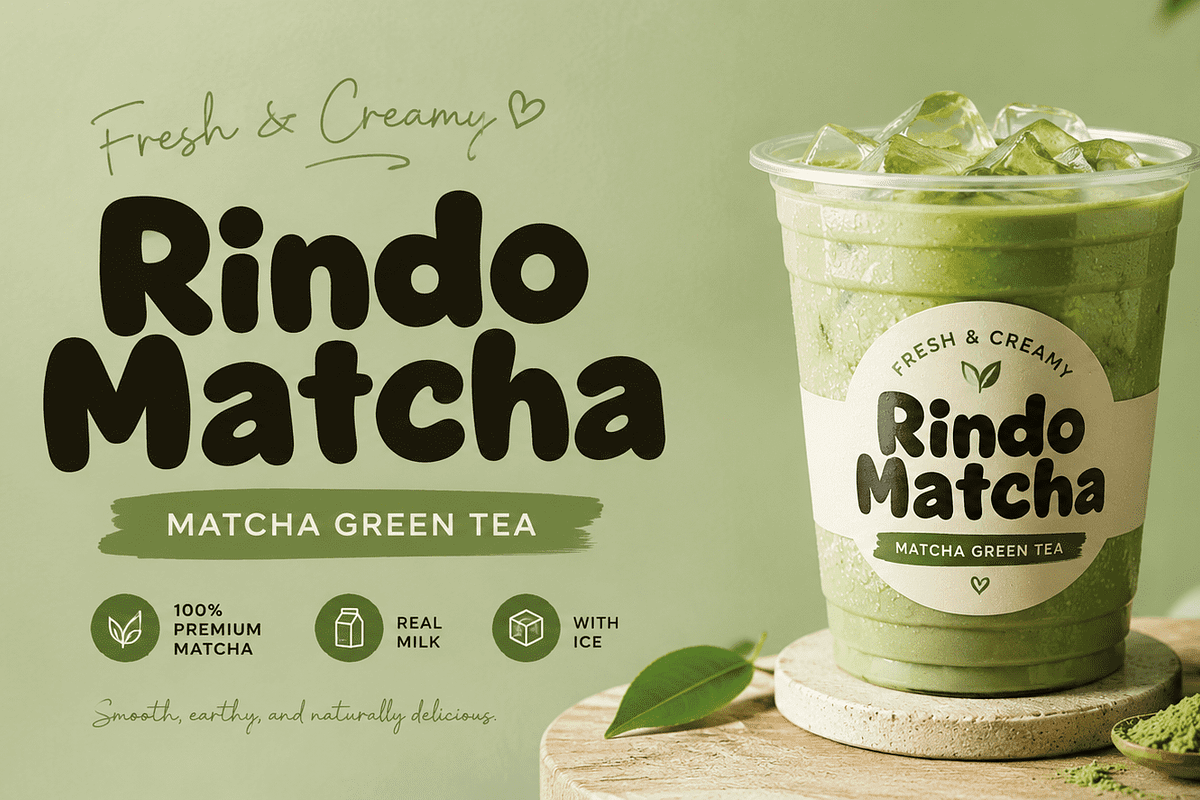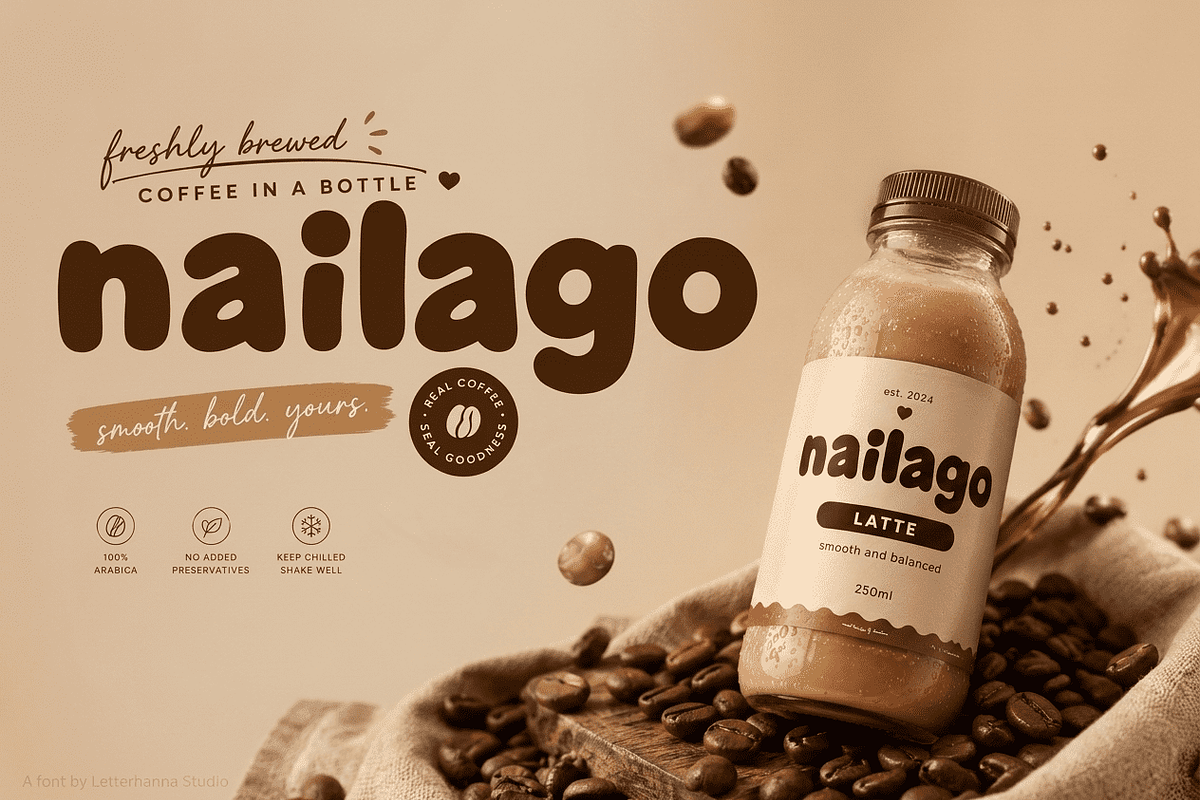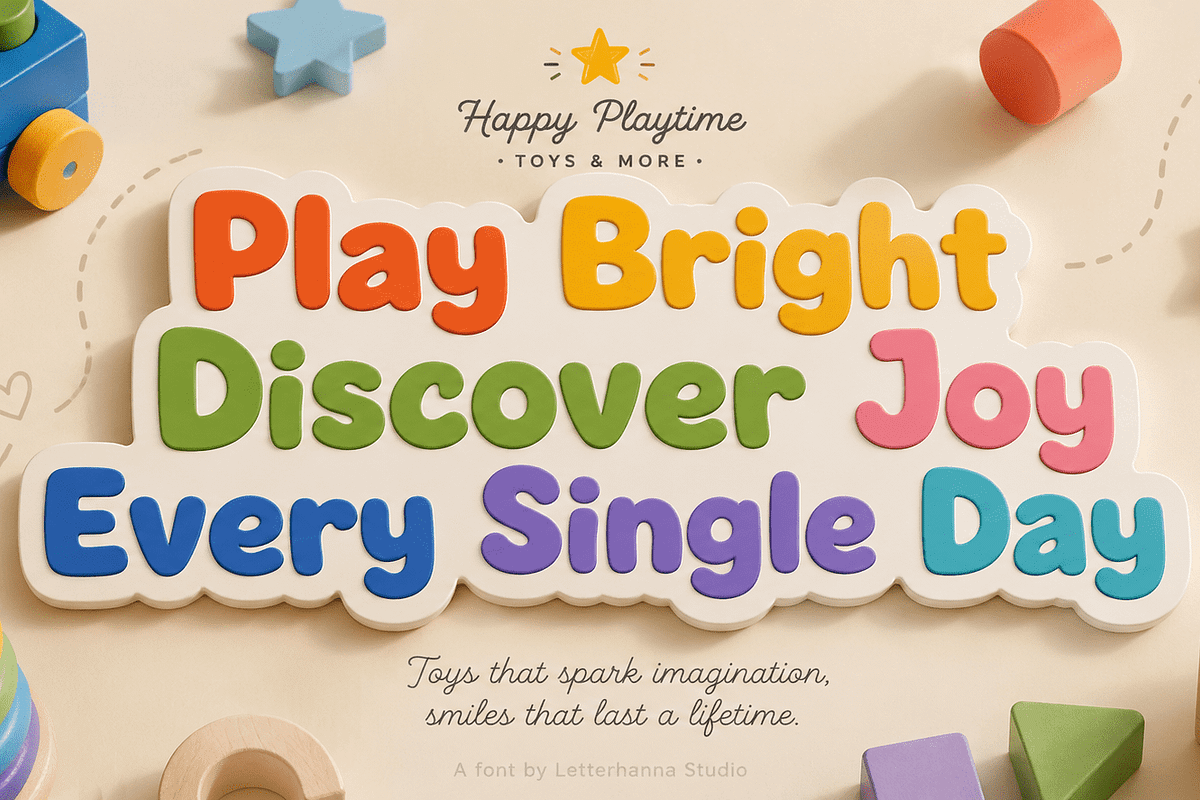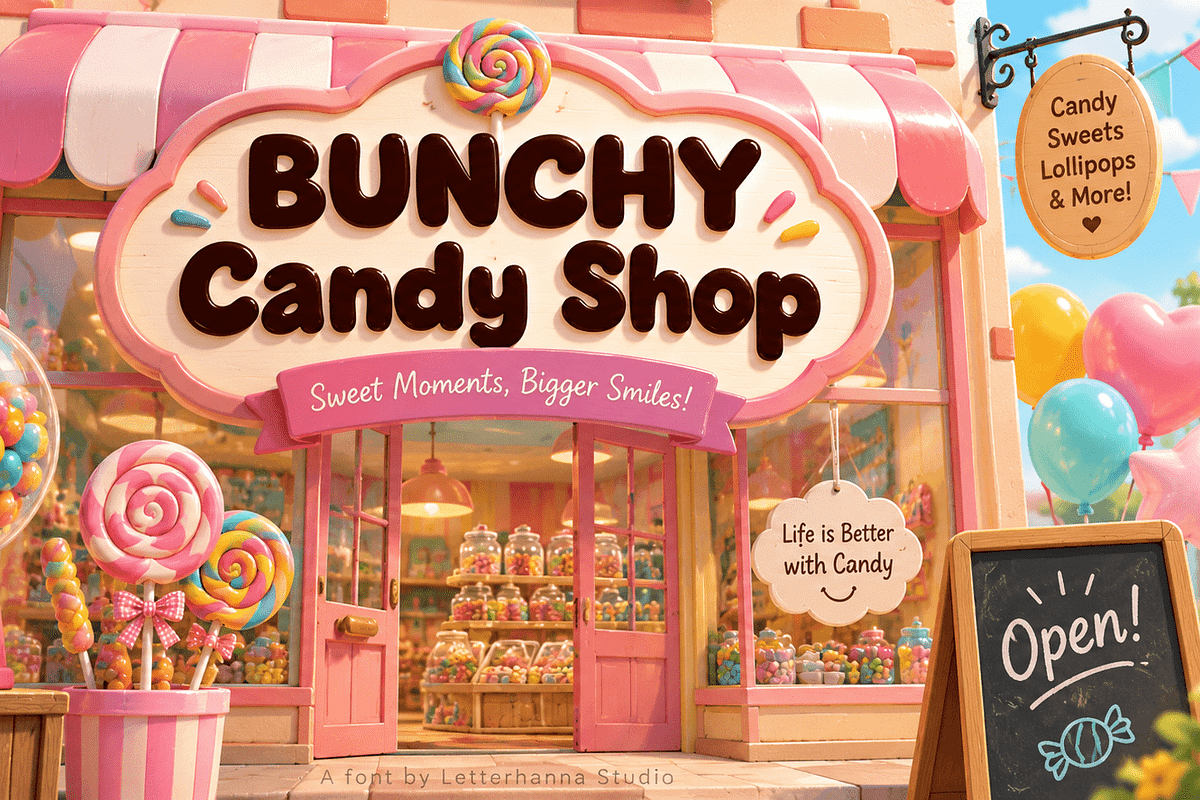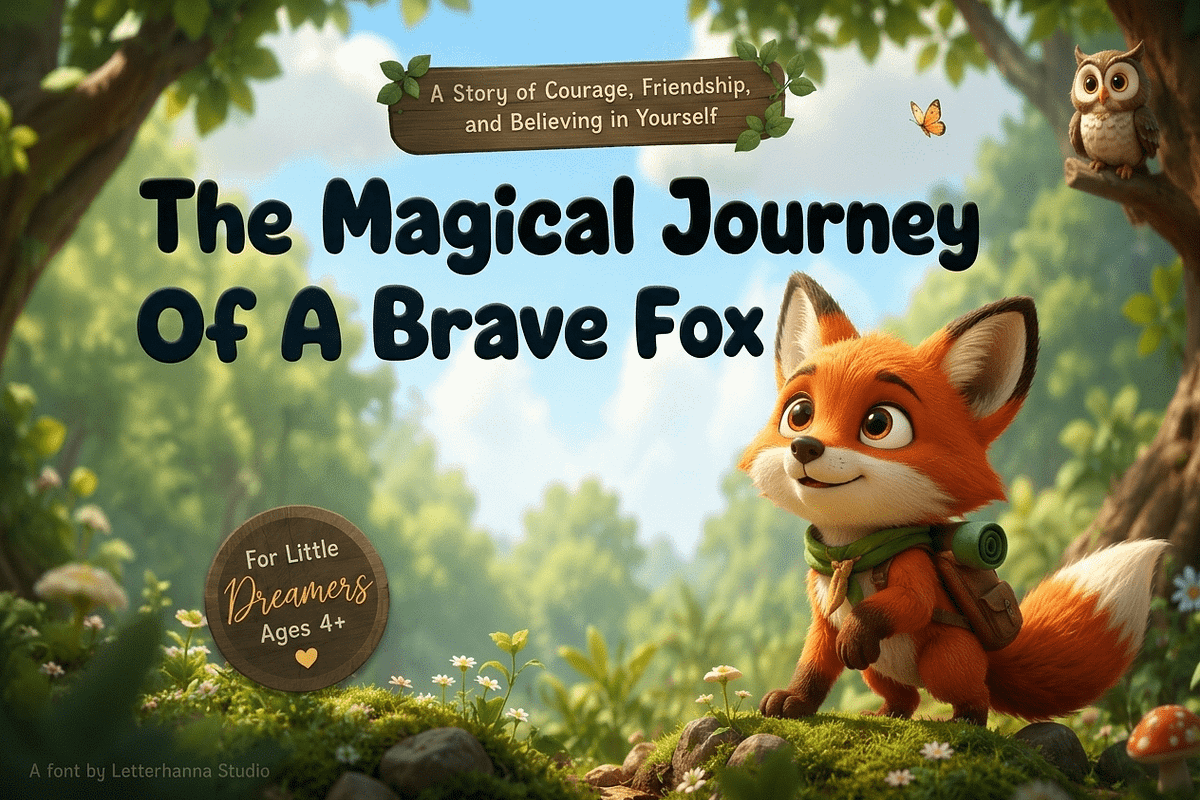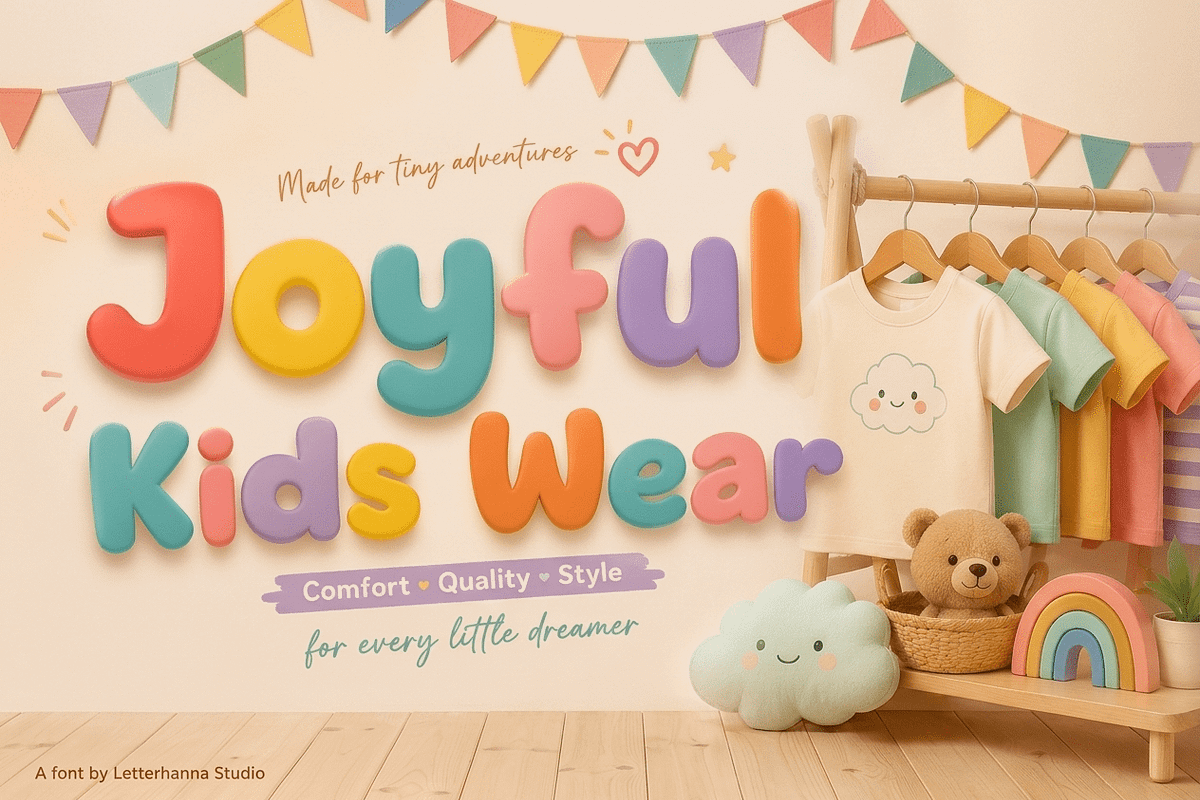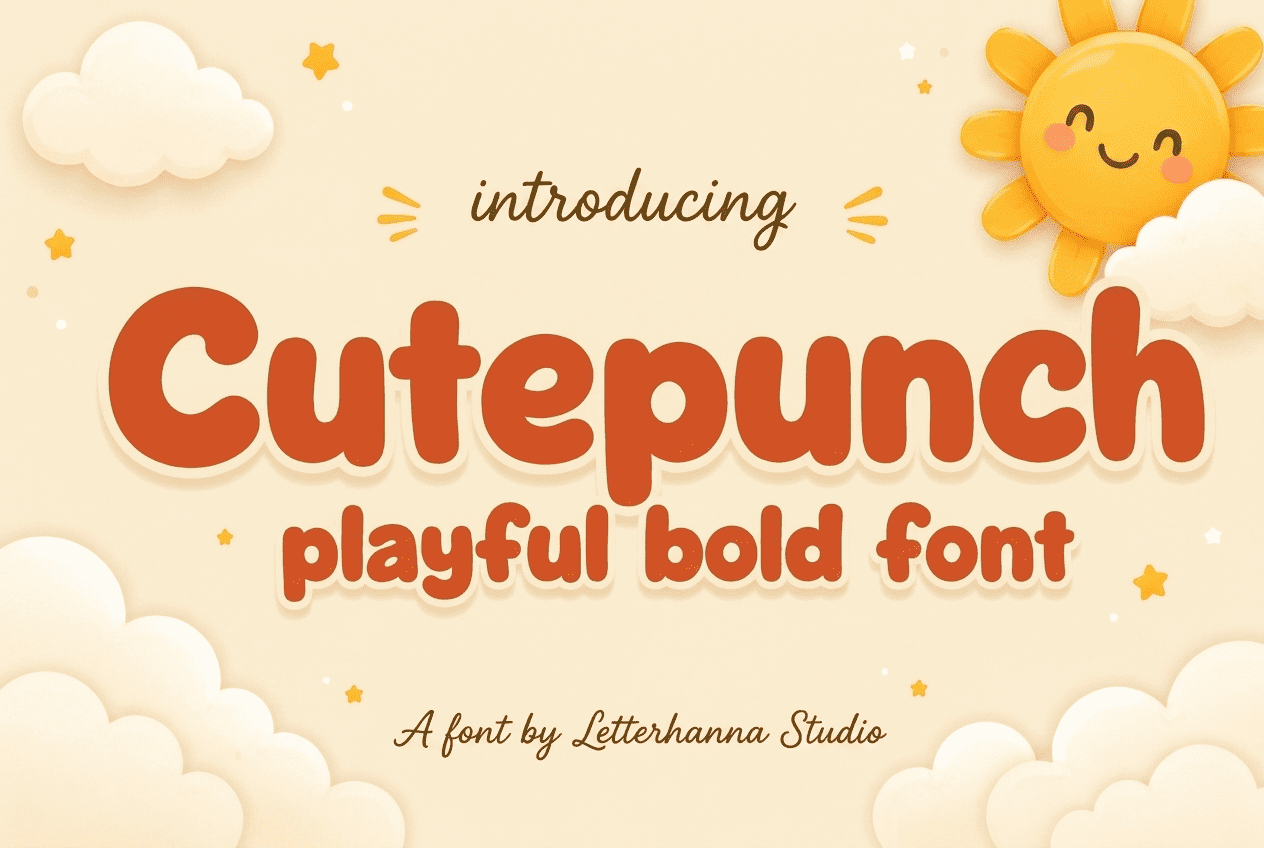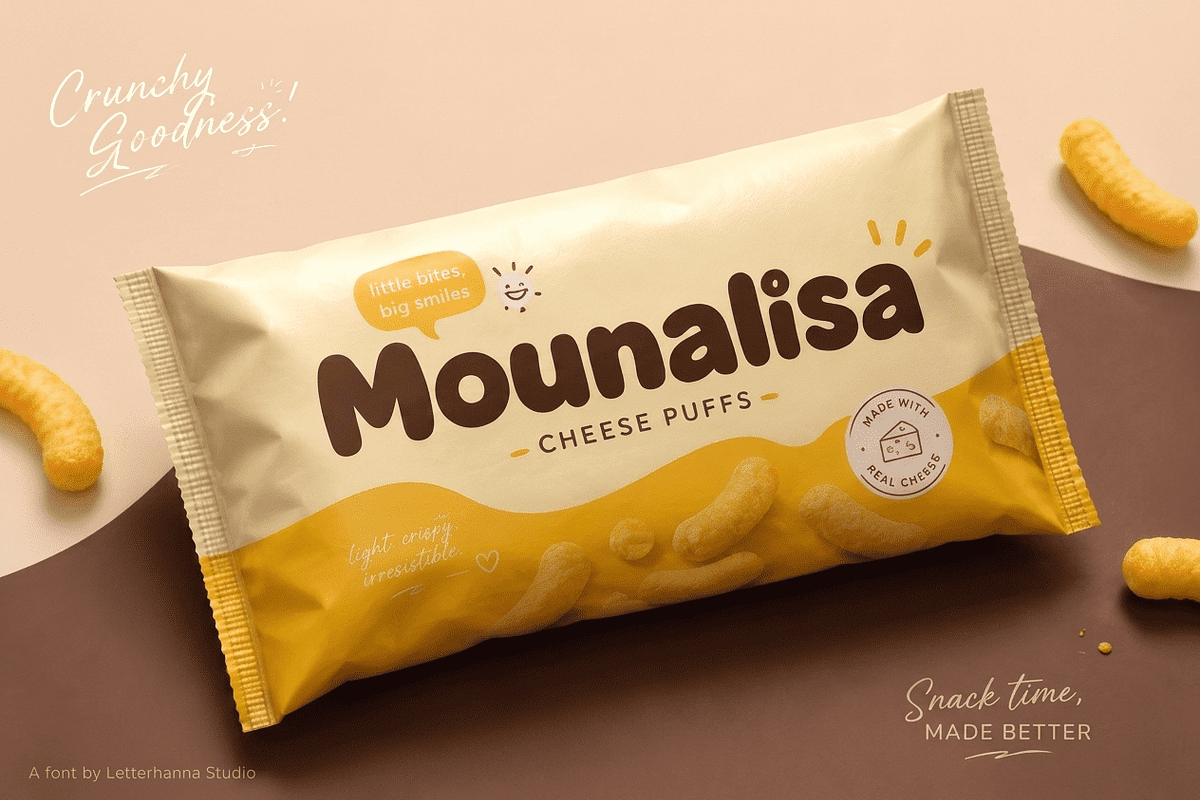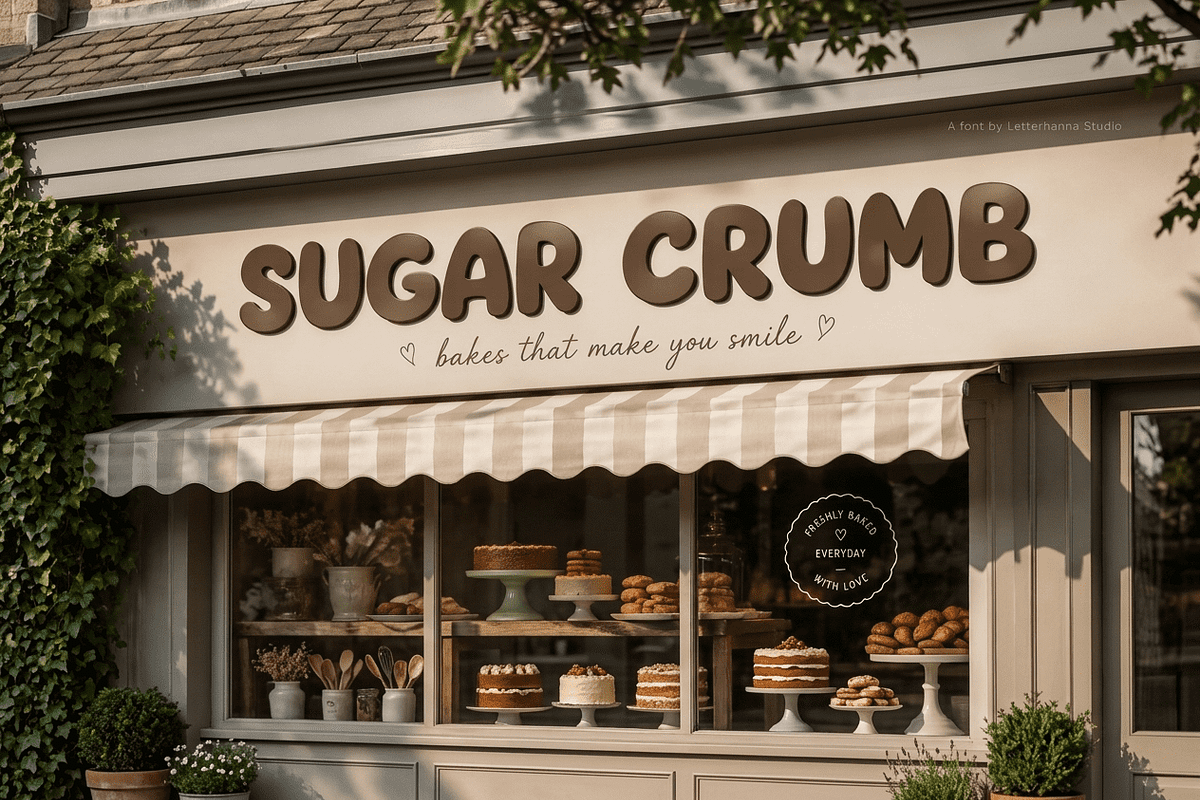
Cutepunch Bold Bubbly Cute Font
There's a special kind of joy that comes from typography with personality — and that's exactly what Cutepunch delivers. This bubbly cute font takes the round, chunky shapes of kawaii-style lettering and pumps them full of energy, confidence, and a touch of playful punch. It's not just cute — it's cute with attitude.
Picture a font that looks like it just bounced off a candy wrapper. Every letter in Cutepunch is inflated, rounded, and generous in proportion, almost like it's holding its breath and puffing up for the camera. The lowercase letters are especially charming, with soft curves and full bowls that feel approachable and warm. Meanwhile, the uppercase and numeral set carry that same puffy consistency, so nothing ever feels mismatched or out of place. This is a true bold font in every sense — thick strokes, strong presence, and a weight that commands attention even in small sizes.
What makes Cutepunch stand out among other alphabet cute fonts is how effortlessly it balances softness with strength. Many playful fonts lean so far into "cute" that they lose legibility or impact. Cutepunch avoids that trap entirely. Its rounded terminals and consistent stroke width keep it readable at a glance, while its oversized curves keep it fun and huggable. It's the kind of font that makes people smile before they've even finished reading the word.
Let's talk a little story behind fonts like this. Imagine a small bakery tucked into a corner of a busy street, its window filled with pastel-colored macarons and a hand-painted sign that reads "Sweet Treats" in big, bubbly letters. That sign doesn't just tell you what's inside — it tells you how the shop feels. Warm. Friendly. A little whimsical. That's the emotional shortcut a bubbly cute font like Cutepunch gives designers: instant personality, without needing a single extra design element. One glance at the lettering, and the vibe is already set.
This is why fonts in this style are so popular for children's branding, party invitations, candy packaging, and playful social media graphics. A birthday card written in Cutepunch feels like a celebration before you even open it. A logo built with this font instantly reads as approachable, joyful, and young at heart. Even in professional contexts — like a nursery decor brand or a whimsical bakery — Cutepunch adds a layer of charm that stiffer, more corporate fonts simply can't replicate.
The vibe of Cutepunch can best be described as "soft rebellion." It's cute, yes — but it's not shy. The heavier stroke weight gives it a confident, bold font quality that holds its own on posters, packaging, and headlines. It doesn't whisper; it giggles loudly and takes up space. That's the "punch" in Cutepunch — a font that's adorable, but never boring.
Designers looking for a playful font that still performs well in real-world applications will appreciate how versatile Cutepunch is. It works beautifully oversized on a poster, but it also holds up nicely in smaller product labels and stickers, thanks to its clean, consistent shapes. Whether you're designing for kids' apparel, dessert packaging, greeting cards, or a light-hearted brand identity, this font brings instant warmth and energy to the page.
In a sea of generic sans-serifs and overly serious display fonts, Cutepunch offers something refreshingly different — a typeface that feels handmade, joyful, and full of character. It's proof that a font can be both adorable and impactful at the same time.